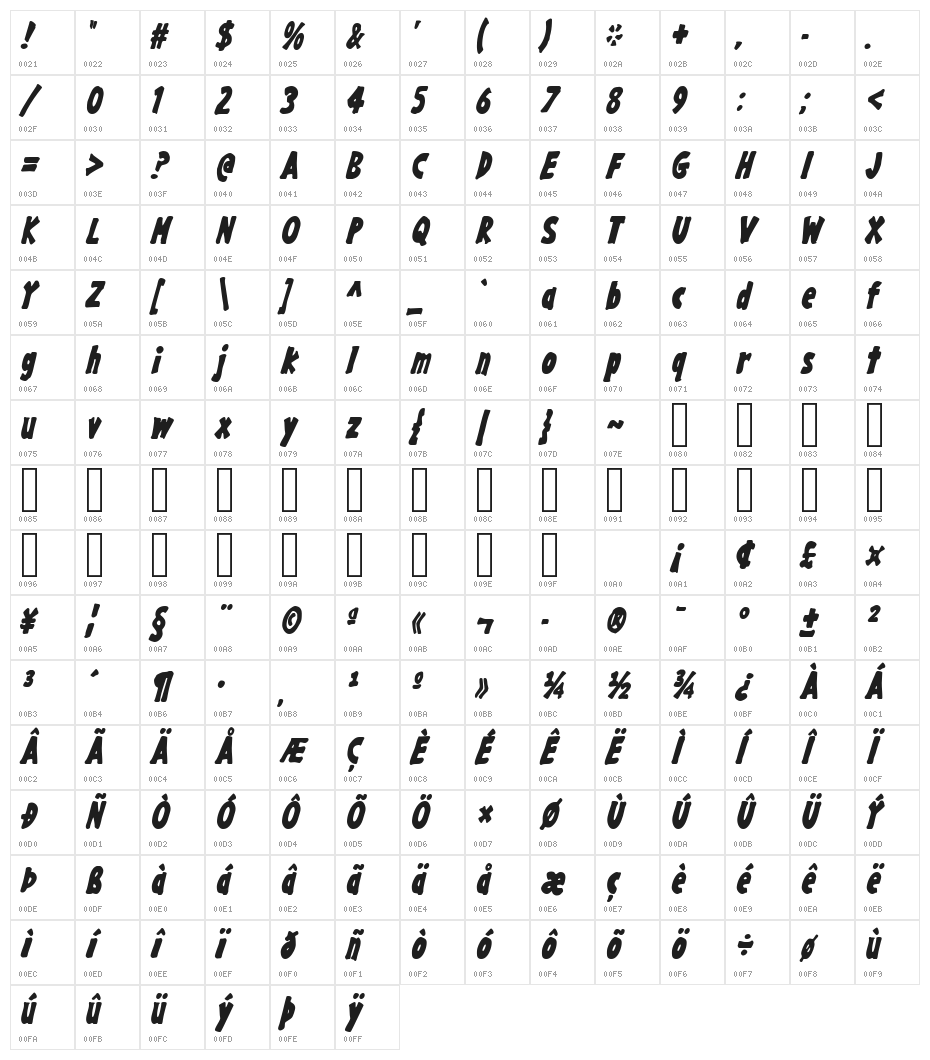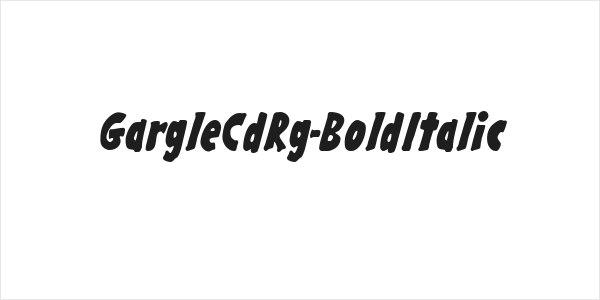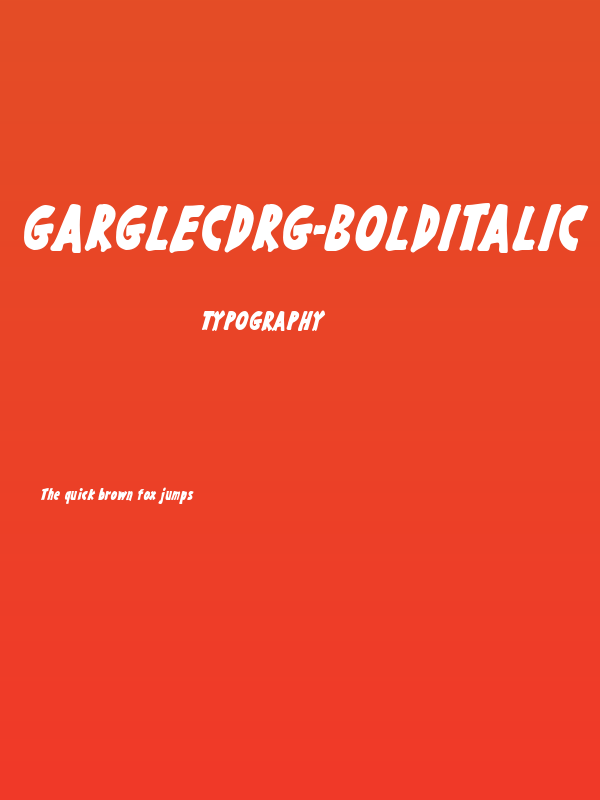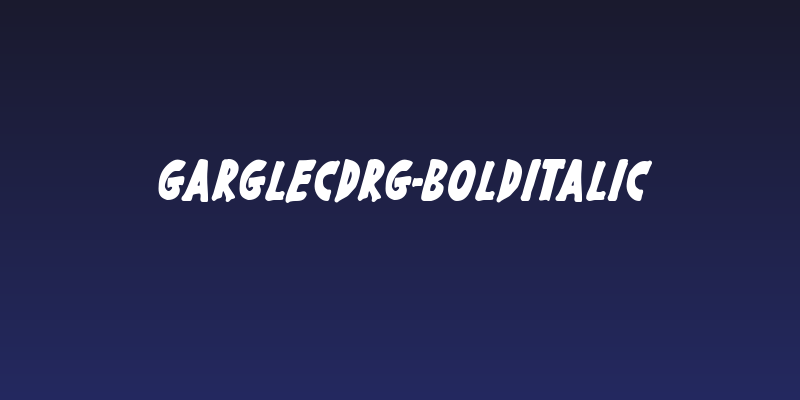
GargleCdRg-BoldItalic Font
GargleCdRg-BoldItalic Description
This bold and italicized font features a playful and dynamic style, characterized by its thick, rounded strokes and slightly slanted letters. The uppercase and lowercase letters maintain a consistent weight, providing a cohesive look. The numbers and special characters follow the same bold and energetic design, making them stand out. The font's overall appearance is informal and lively, suitable for projects that require a touch of fun and creativity. Its boldness ensures high visibility, while the italic slant adds a sense of motion and excitement.
Overall StylePlayful
Proposed ProjectsIdeal for children's books, comic strips, playful branding, and event posters.